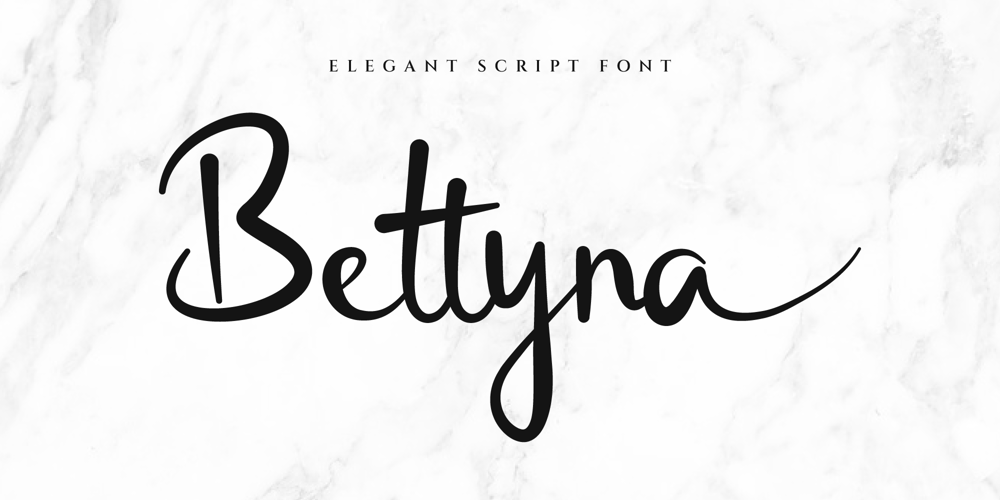
Bettyna Font Family was designed by Iwan Alwan and published by Artiveko. Bettyna contains 2 styles and family package options. Bettyna, a captivating script handwritten font meticulously crafted by Iwan Alwan.With its graceful strokes and elegant curves, Bettyna embodies sophistication and charm, making it the perfect choice for businesses in the realms of cosmetics, fashion, and weddings.Whether adorning product packaging, fashion labels, or wedding invitations, this font adds a touch of timeless beauty and refinement to any design. Embrace the allure of Bettyna and elevate your brand presence with its distinctively chic aesthetic.